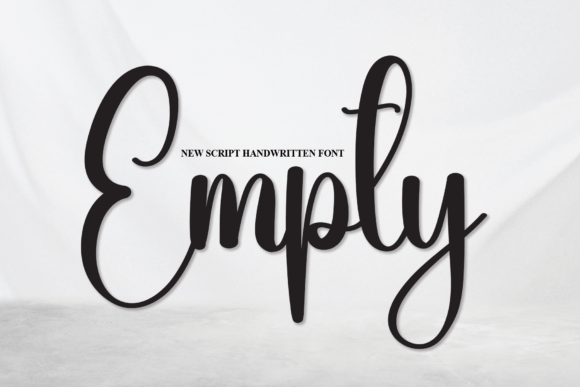
Introducing Empty Font - the perfect addition to your fonts library! Crafted by the talented andikastudio, this cursive handwritten script font is all you need to give your designs a personal touch. If you're looking for a font that's elegant, stylish, and versatile, then look no further than Empty Font.
One of the most unique features of this font is that it's specifically designed for LED displays. So if you're looking for a font that will make your digital designs stand out, then Empty Font is definitely worth considering. This typeface is perfect for creating eye-catching displays, signage, and even website headings.
But that's not all. Empty Font is also incredibly easy to read, making it perfect for a wide range of design projects. Whether you're creating a wedding invitation, a greeting card, or a social media post, this font will add a touch of sophistication and elegance to your work.
Plus, with its rich, emotional, and captivating appearance, Empty Font is sure to make an impact on anyone who sees it. It's the perfect way to add a touch of personality and style to your designs, and to stand out in a sea of generic fonts.
In conclusion, if you're looking for a beautiful, versatile, and unique font that's perfect for a wide range of design projects, then Empty Font is the perfect choice for you. So why wait? Download Empty Font today and start adding that personal touch to your designs!